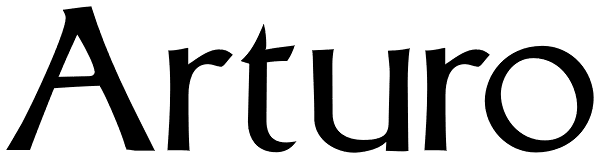
Arturo
Arturo is a brand new font family drawn from the original inspiration of an old alphabet in one of Dan Solo's Dover Clip Art books. It has moved far away from those raw roots, however. Every character has been redrawn. For example, I had a light...